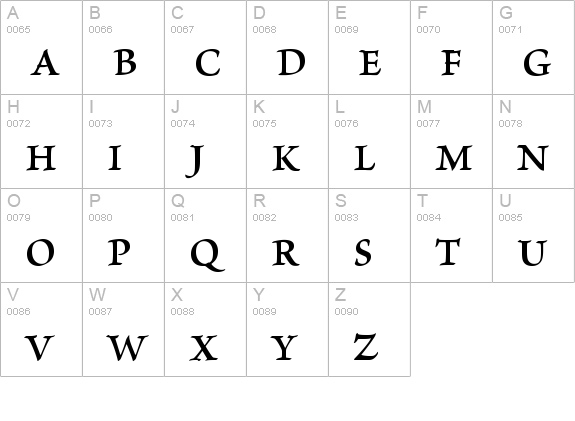
Brioso Pro Semibold Caption Font Details
Brioso Pro Semibold Caption is a sub-bold, structured variant in the Brioso typeface family \xE2\x80\x94 well suited to sub-headlines and emphasised passages.
Brioso Pro Semibold Caption is a versatile and elegant font that strikes the perfect balance between sophistication and readability. Its bold yet refined design makes it ideal for a wide range of projects, from professional documents to eye-catching advertisements. The semi-bold weight of this typeface gives it a strong presence on the page, while the caption size ensures that every detail is crisp and clear. What sets Brioso Pro Semibold Caption apart is not just its striking design, but also the fact that it is available for free download at FontsMarket.com. This means that you can add this high-quality font to your collection without breaking the bank. Whether you're a designer looking to elevate your work or a business owner in need of a polished font for your branding materials, Brioso Pro Semibold Caption is sure to impress. Download it today and see the difference it can make in your projects.